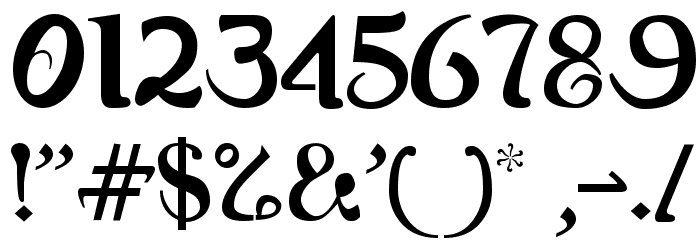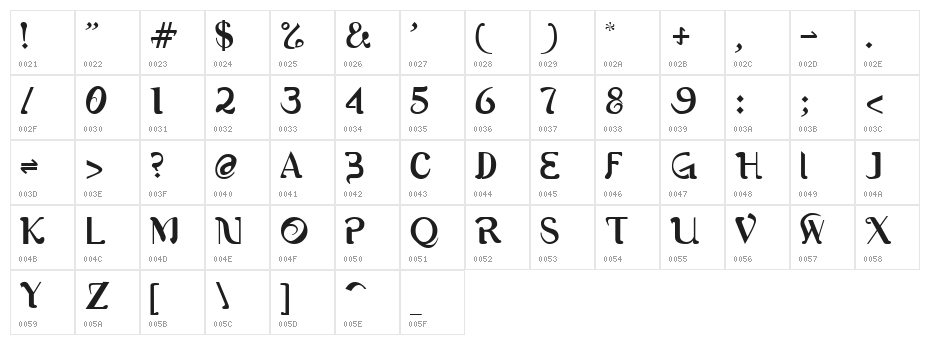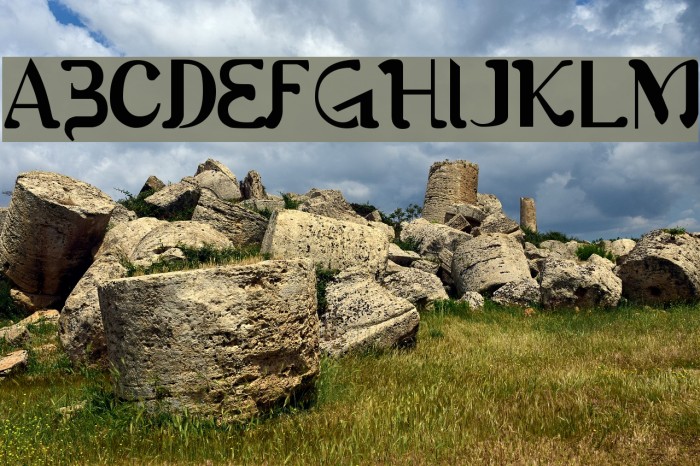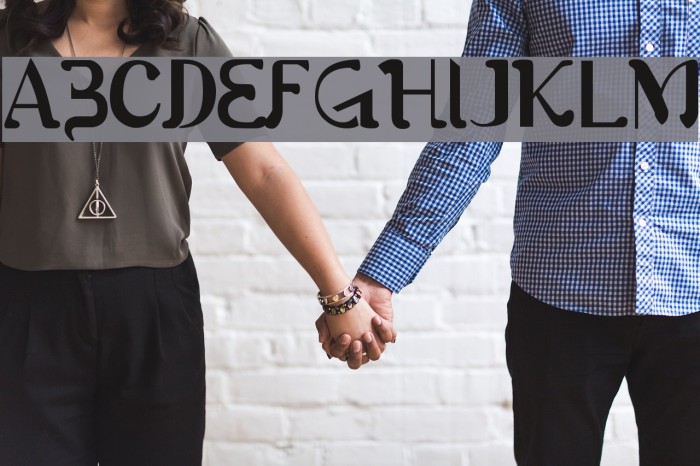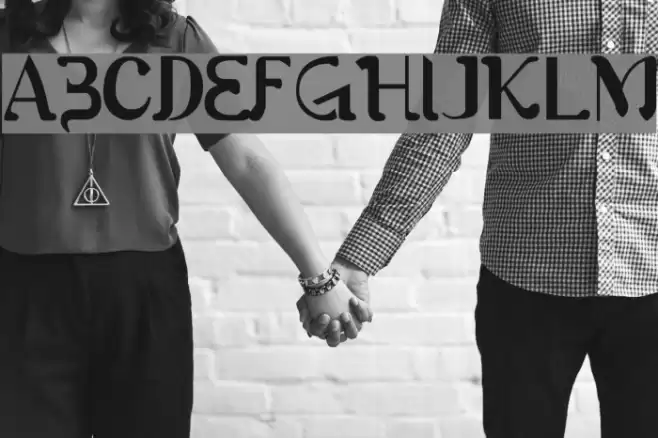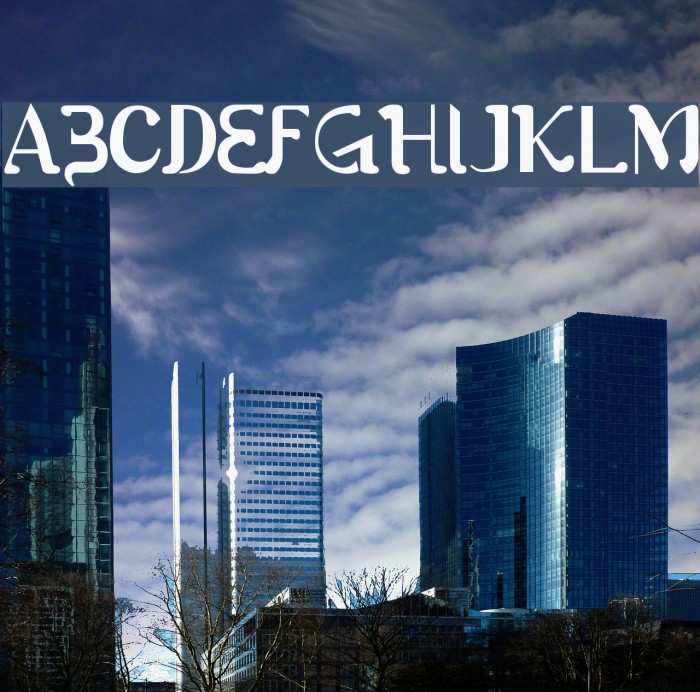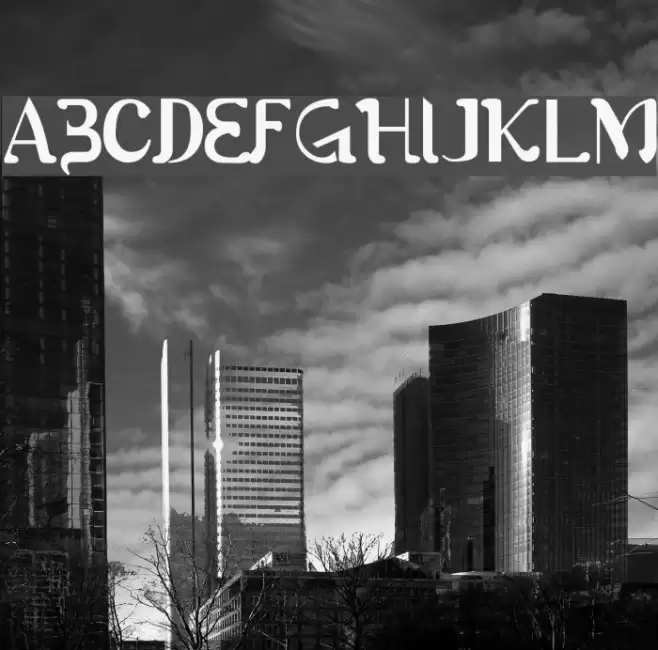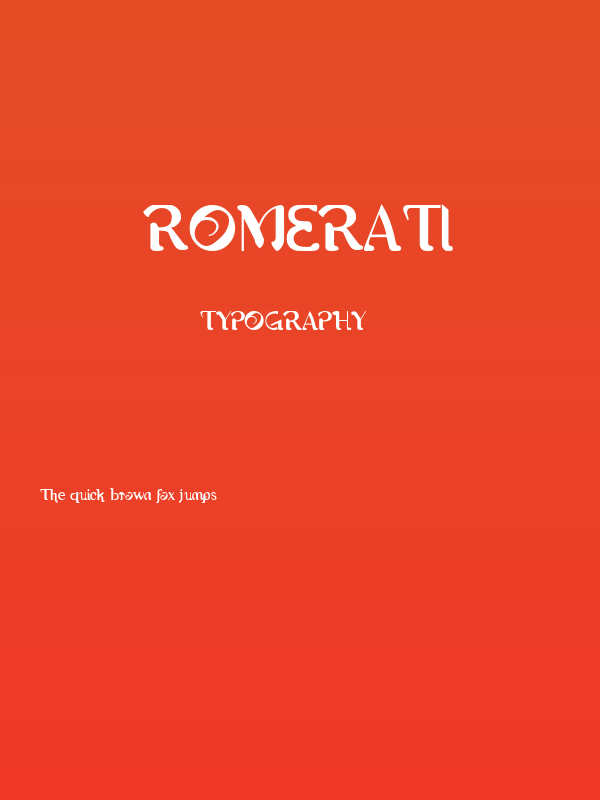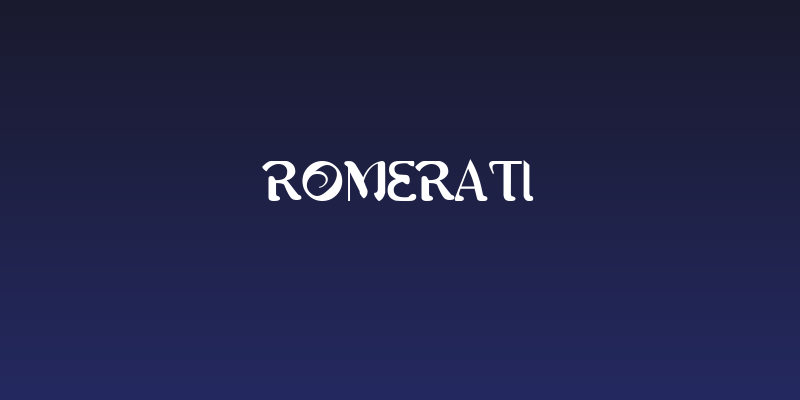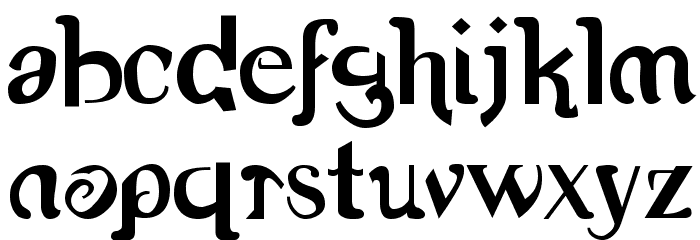
Romerati Font
Romerati Description
This font features a unique blend of modern and classic styles, characterized by its bold and artistic curves. The uppercase letters exhibit a strong presence with their thick strokes and distinctive serifs, while the lowercase letters maintain a playful yet sophisticated appearance. The numerals are bold and easily legible, making them suitable for various design applications. Special characters are designed with a creative flair, adding to the font's overall decorative appeal. The font's style is both eye-catching and versatile, making it ideal for projects that require a touch of elegance and creativity.
| Proposed Projects | Ideal for branding, posters, headlines, and creative design projects that require a distinctive and artistic touch. |